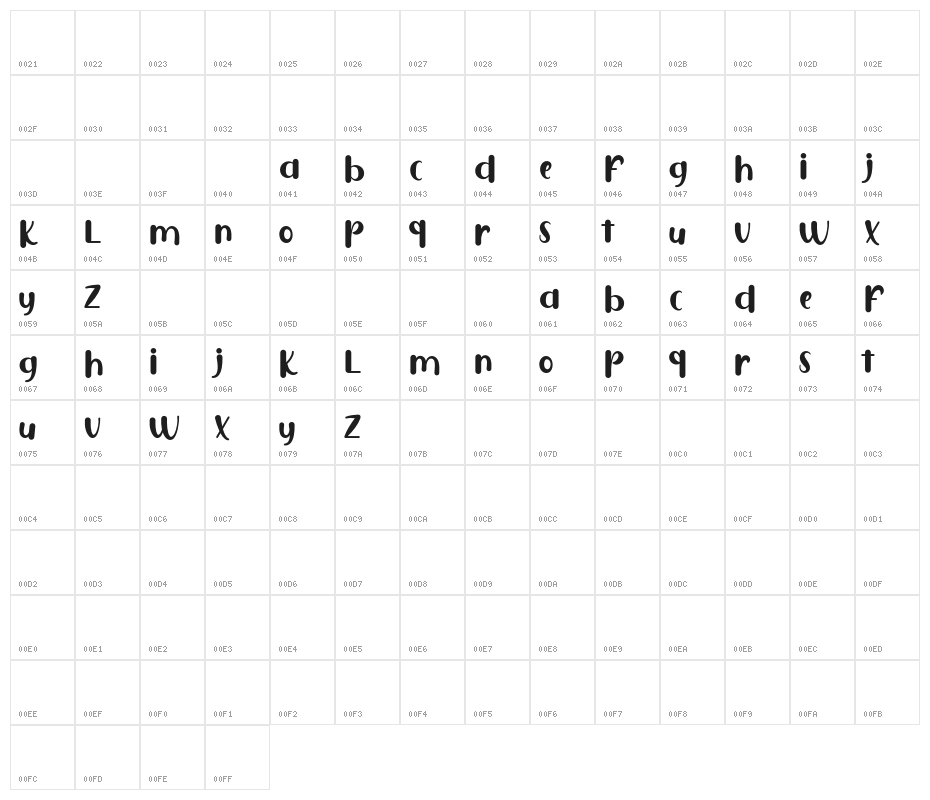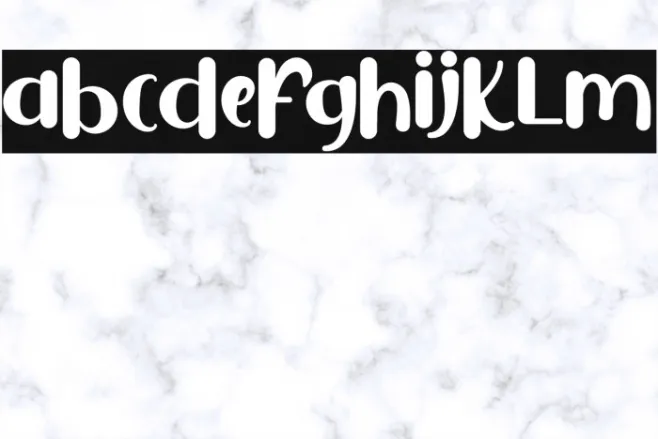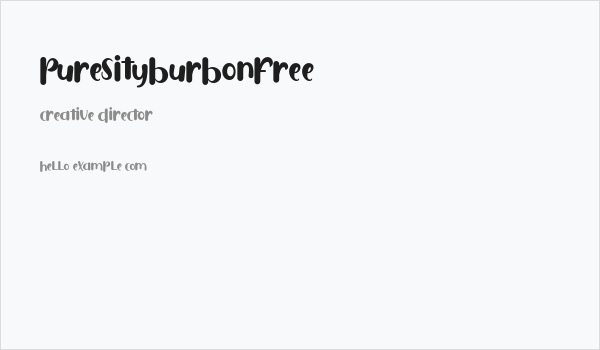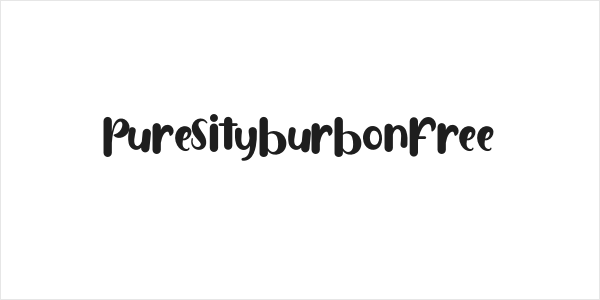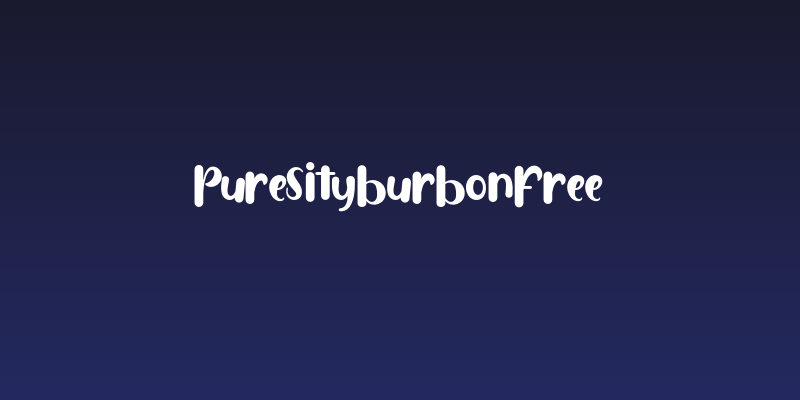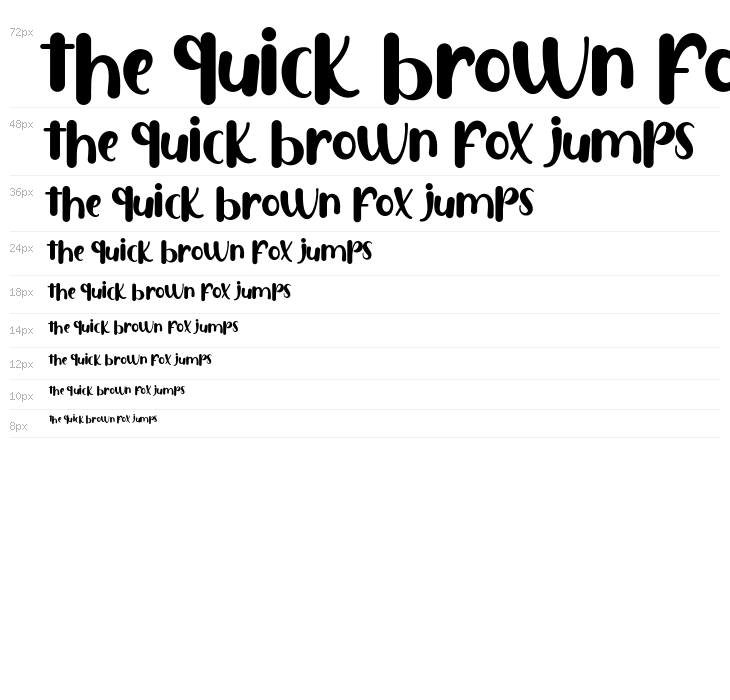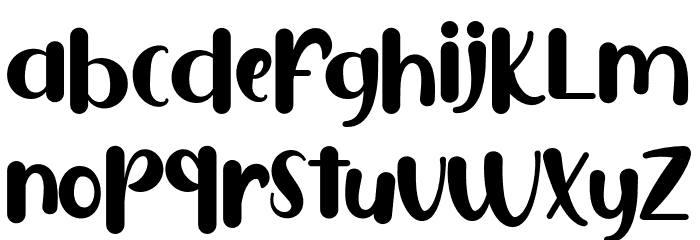
PuresityBurbonFREE Font
PuresityBurbonFREE Description
This font features a playful and bold design with a unique blend of rounded and angular elements. The characters are thick and have a consistent weight, giving them a strong presence. The lowercase letters have a whimsical quality, with some characters like 'g' and 'y' featuring distinctive loops and tails. The uppercase letters maintain a cohesive style, with a slight slant that adds dynamism. The overall appearance is modern and eye-catching, making it suitable for creative and informal applications.